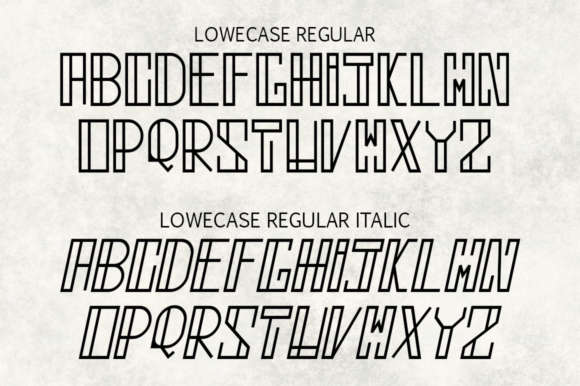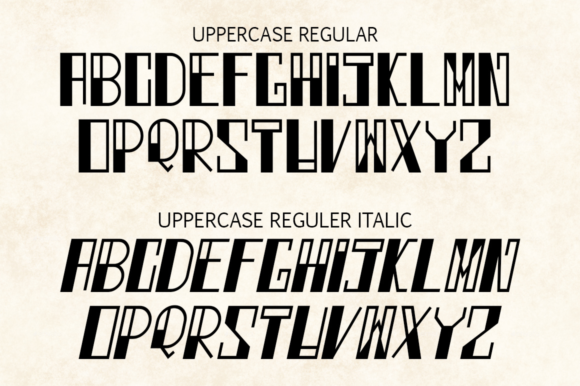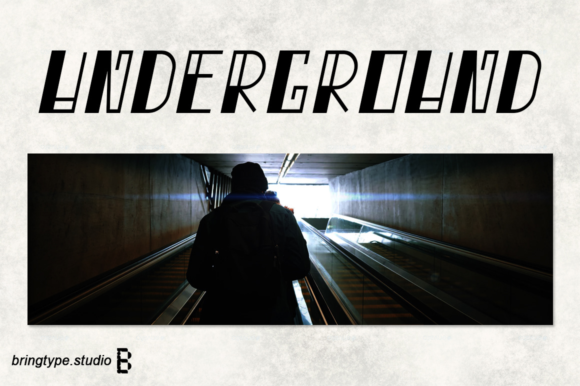
Introduction to Linegers Font
Remember the excitement of designing a new logo or branding project? The thrill of combining colors, shapes, and typography to bring your creative vision to life? That’s exactly what happens when you stumble upon the perfect font – and we’re excited to introduce you to the Linegers Font.
With its fun and techno look, Linegers Font is a design resource that’s sure to elevate your creative project. Its high-quality design makes it perfect for adding a touch of modernity to your letterheads, titles, and stationery. Whether you’re a seasoned designer or just starting out, Linegers Font is a valuable addition to your design toolkit – and the best part? You can download it for free, complete with a transparent background for seamless integration into your designs.
Key Features of Linegers Font
- High-quality design resource perfect for creative projects
- Designed with a unique, modern aesthetic that is sure to add a touch of sophistication to any creative project
Honest Review: Linegers Font
As a designer, I’ve come across a plethora of fonts to enhance my creative projects. Recently, I had the chance to explore the Linegers Font, and I must say it’s been a pleasant experience.
- ✨ Unique design: The Linegers Font boasts an eclectic style that can add an extra layer of sophistication to your design resource.
- ✨ High quality: The font is crisp and clear, making it perfect for digital designs.
- ⚠️ Limited font sizes: The Linegers Font might not be suitable for large-scale designs, as it can become distorted.
Overall, I’d say the Linegers Font is a solid addition to any designer’s toolkit. Its unique design and high quality make it a great choice for creative projects. While it has some limitations, it’s definitely worth exploring, especially since it’s free to download.
Linegers Font is ideal for creative projects that require a high-quality, stylish font. Some common use cases include:
- Branding and logo design
- Infographics and data visualization
- Advertising and marketing materials